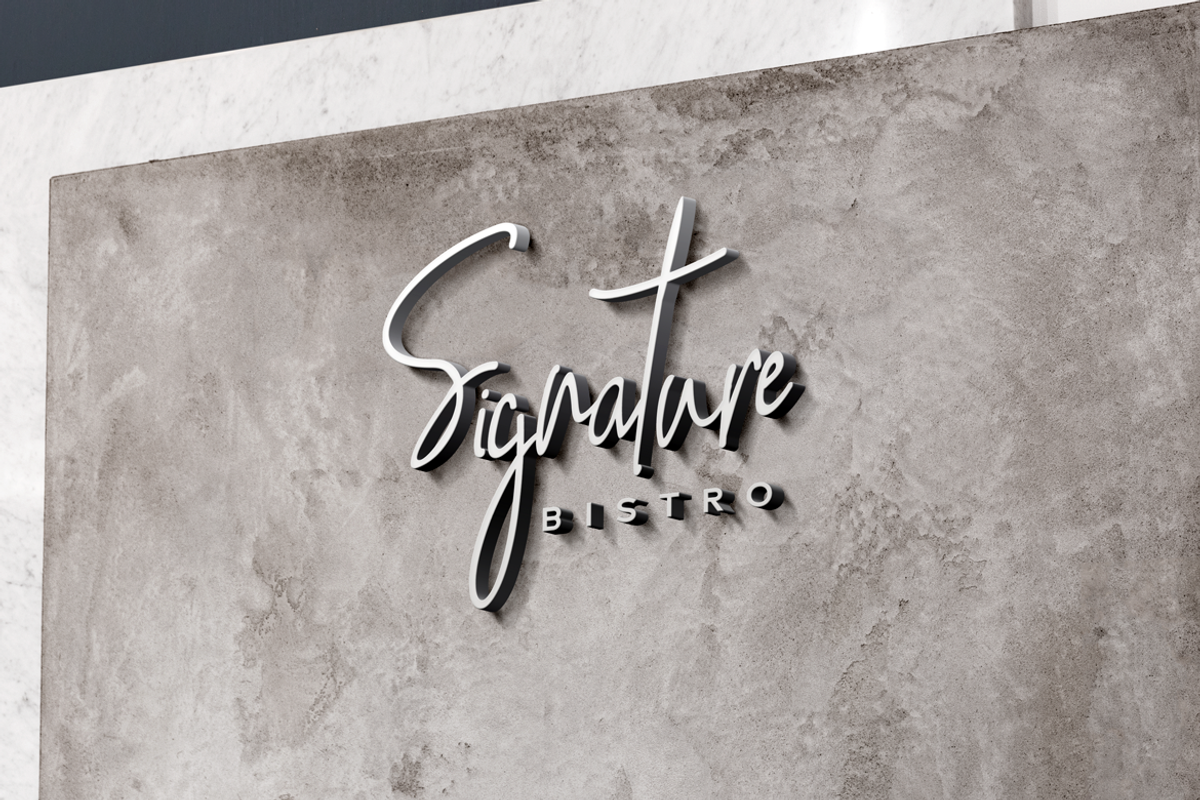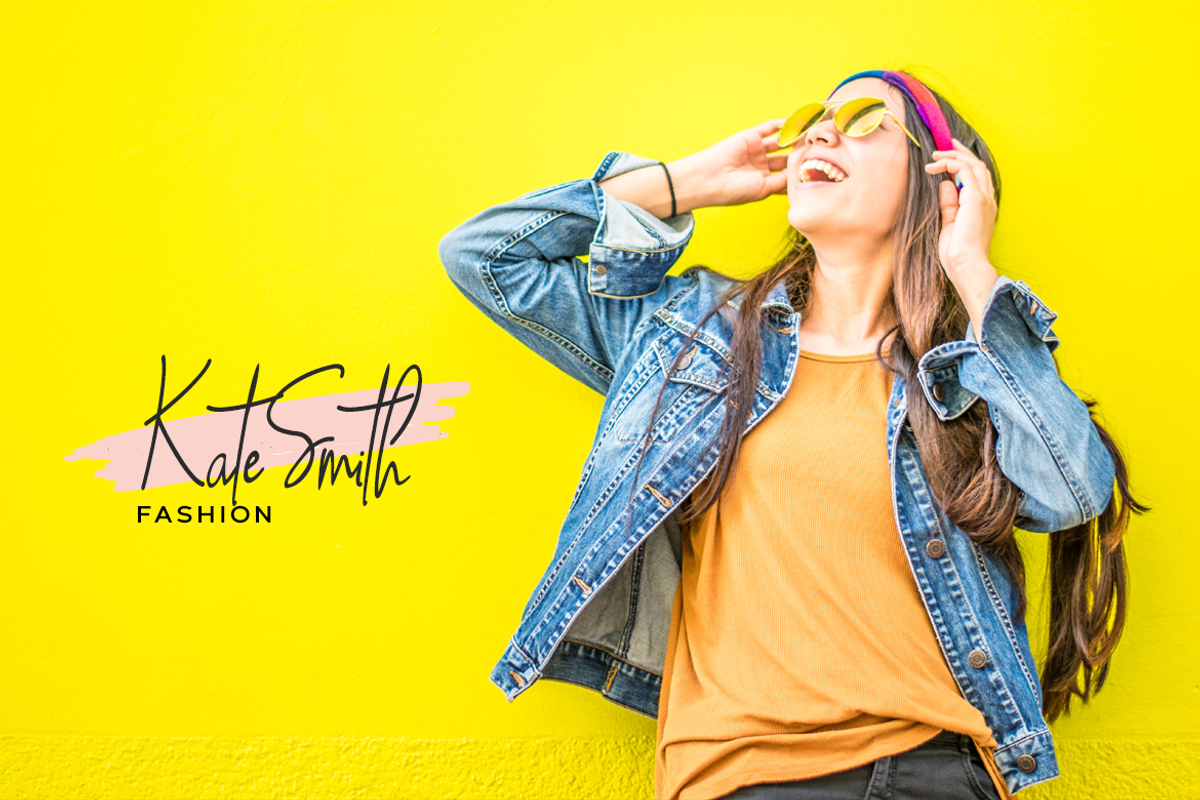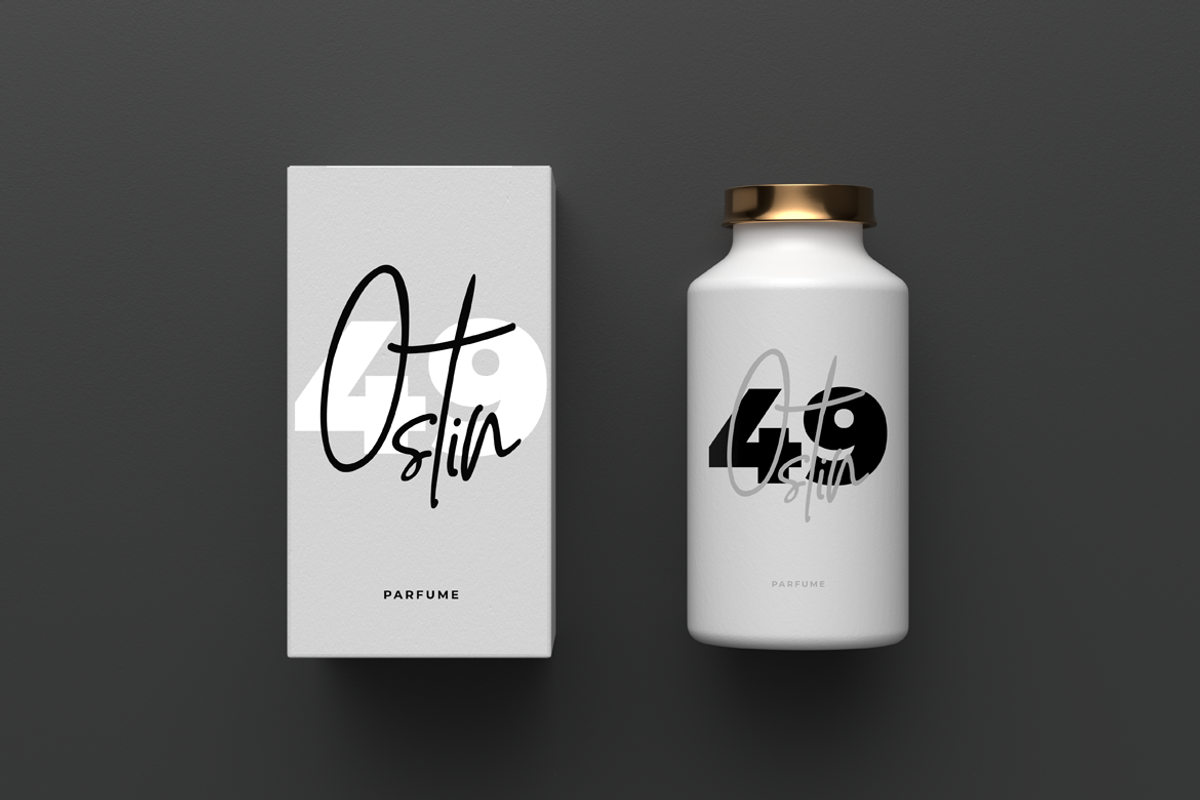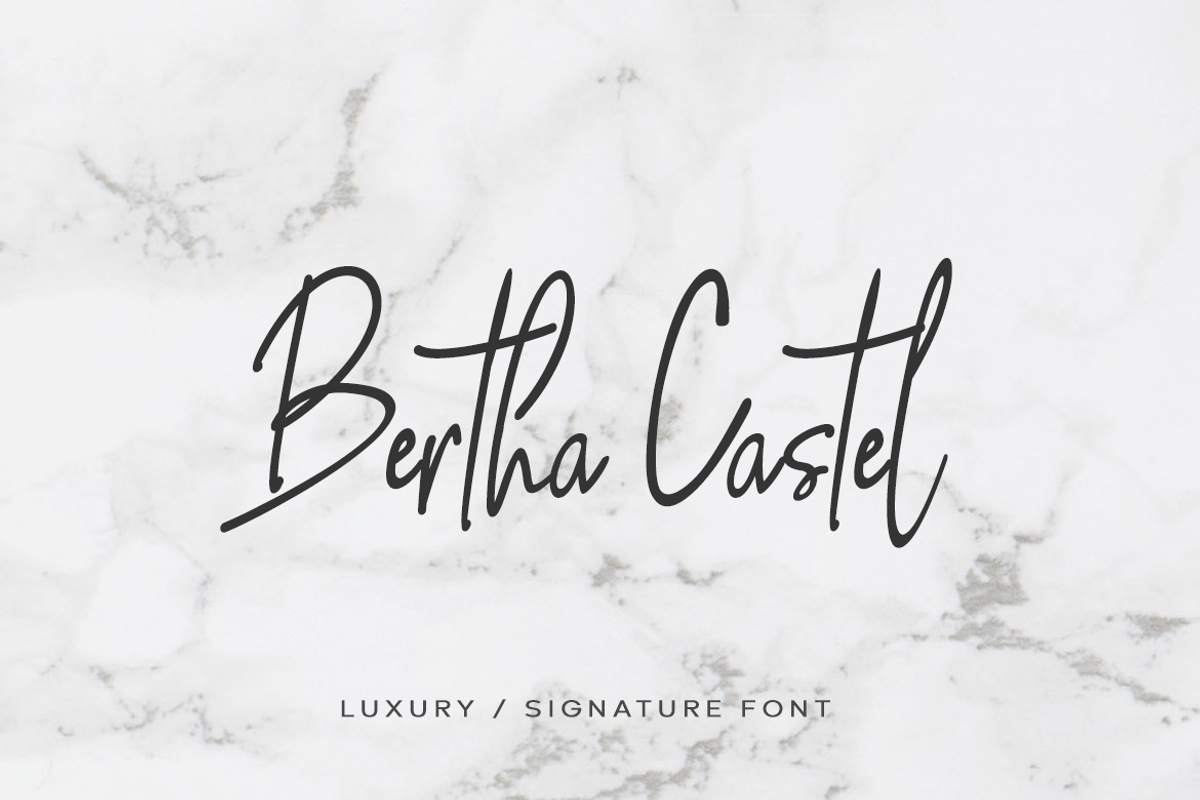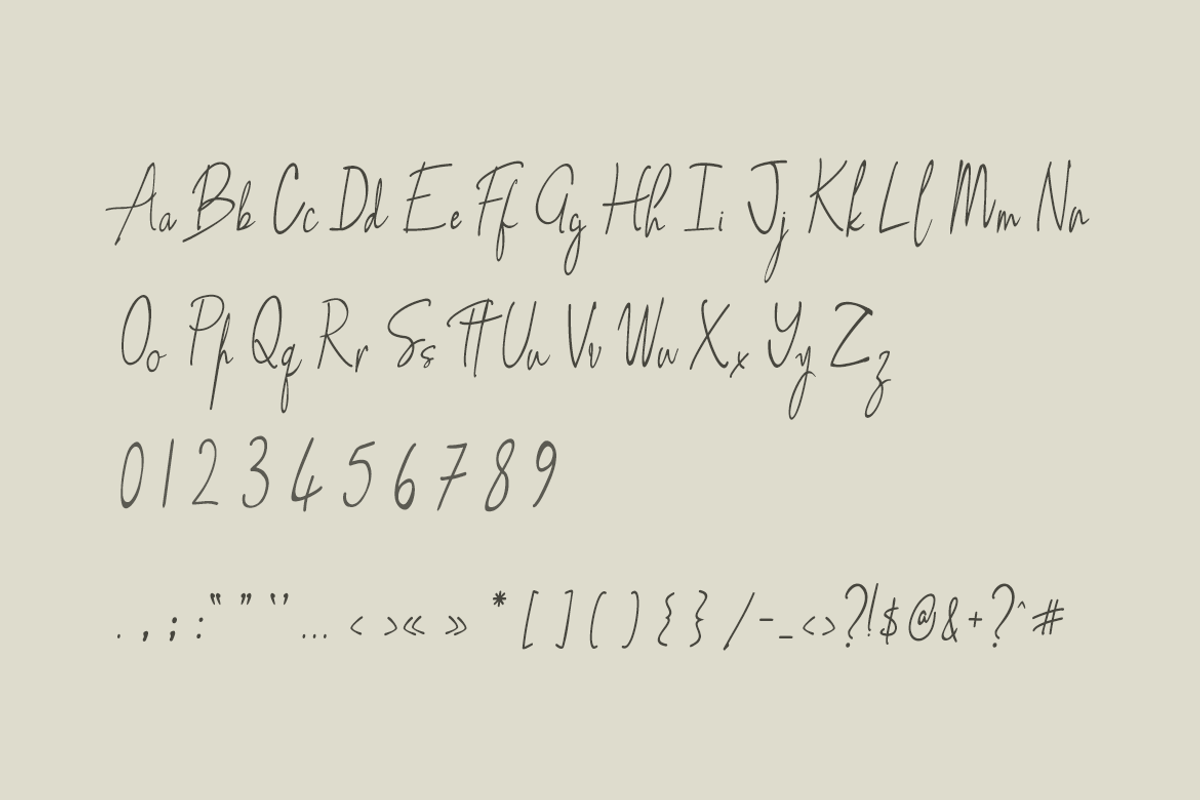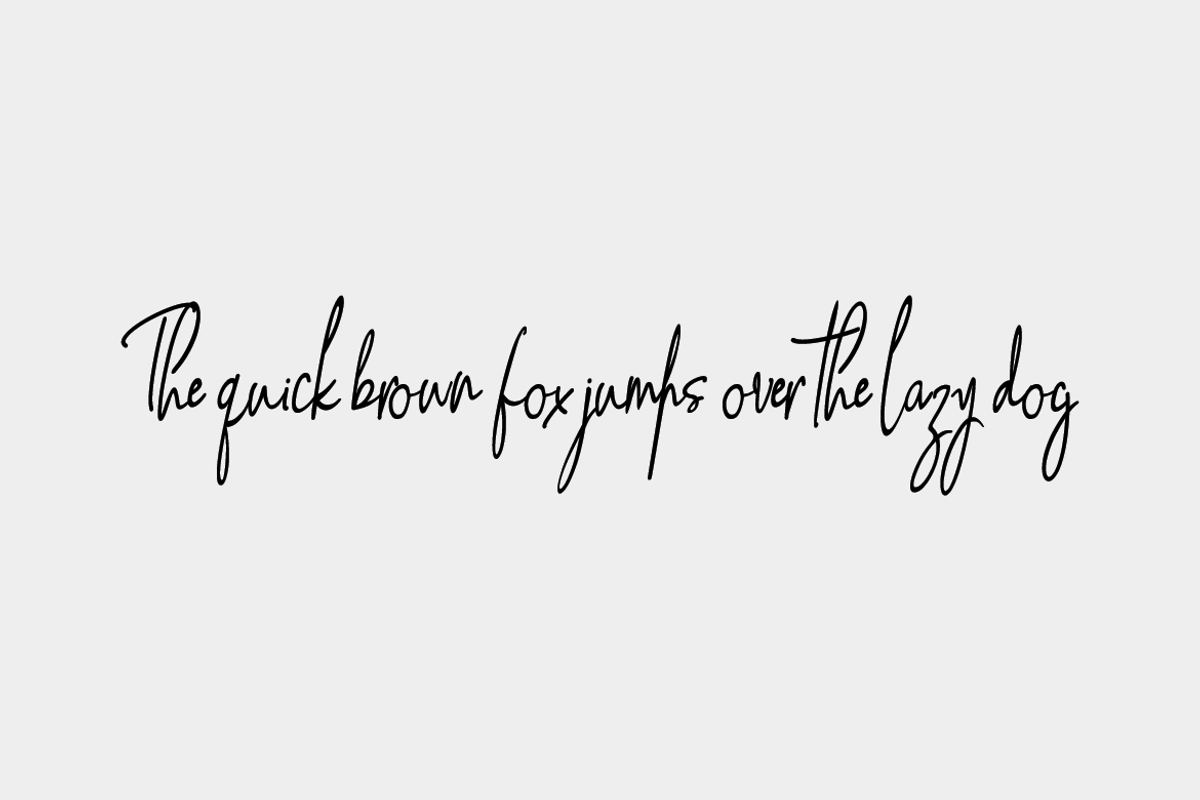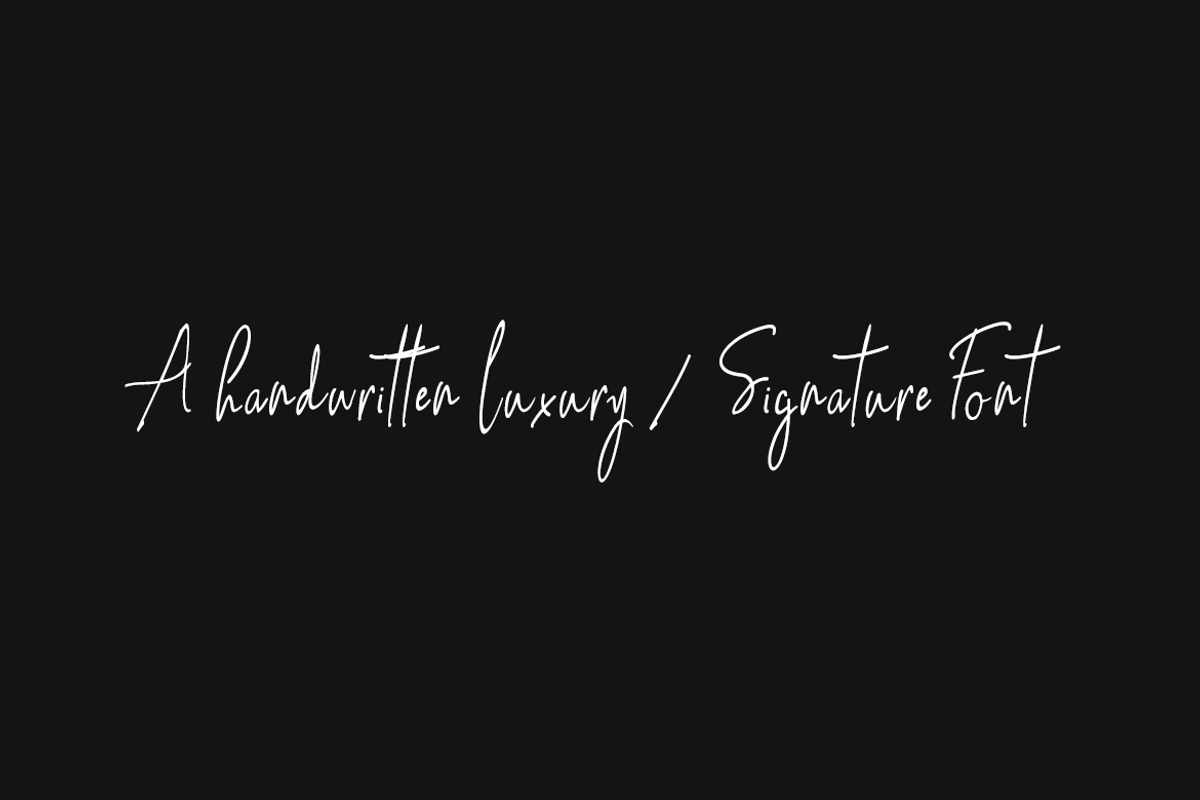
Bertha Castel - Handmade Luxury Font
Bertha Castel is a stunningly beautiful handwritten font for luxury / branding / wedding invites / greeting cards / logo design / promotional graphics. Bertha Castel is handwritten, precisely adding a finest touch of perfection and aesthetics at it's level best.
Advanced Kerning
We have performed advanced, in-depth kerning to make sure the font looks amazing on all possible letter combinations.